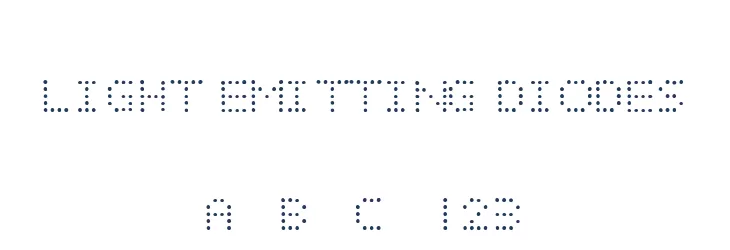
LIGHT EMITTING DIODES Web Font
LIGHT EMITTING DIODES Description
This font features a unique dot matrix style, reminiscent of digital displays and LED screens. Each character is composed of a series of evenly spaced dots, creating a modern and technological aesthetic. The uppercase and lowercase letters, as well as numbers and special characters, maintain a consistent dot pattern, ensuring readability while providing a distinct visual appeal. The font's design is both futuristic and minimalistic, making it suitable for projects that require a digital or tech-inspired look.
| Character Spacing | Monospaced |
| Contrast | Low |
| Overall Style | Modern |
| Use Case | Headlines, Logos |
| Proposed Projects | Ideal for digital displays, tech-themed posters, electronic device interfaces, and futuristic branding. |